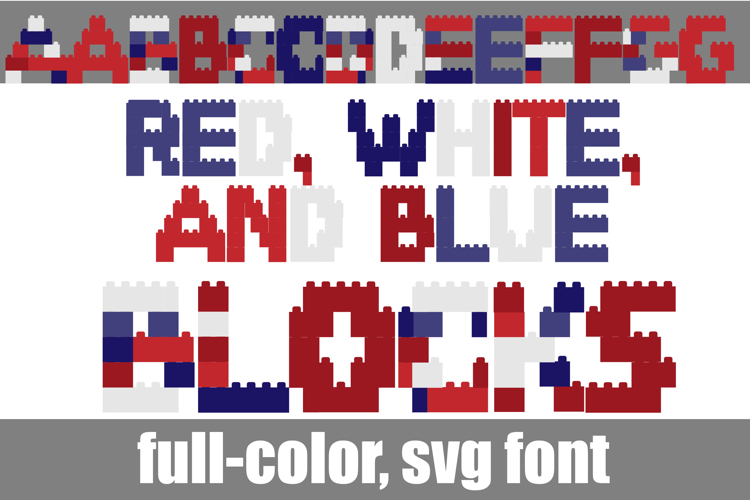
Red, White, and Blue Blocks Color Font
This full-color, building block font is in a patriotic color palette. There is an alt case of additional colors of each letter that you can access through your system's character map.